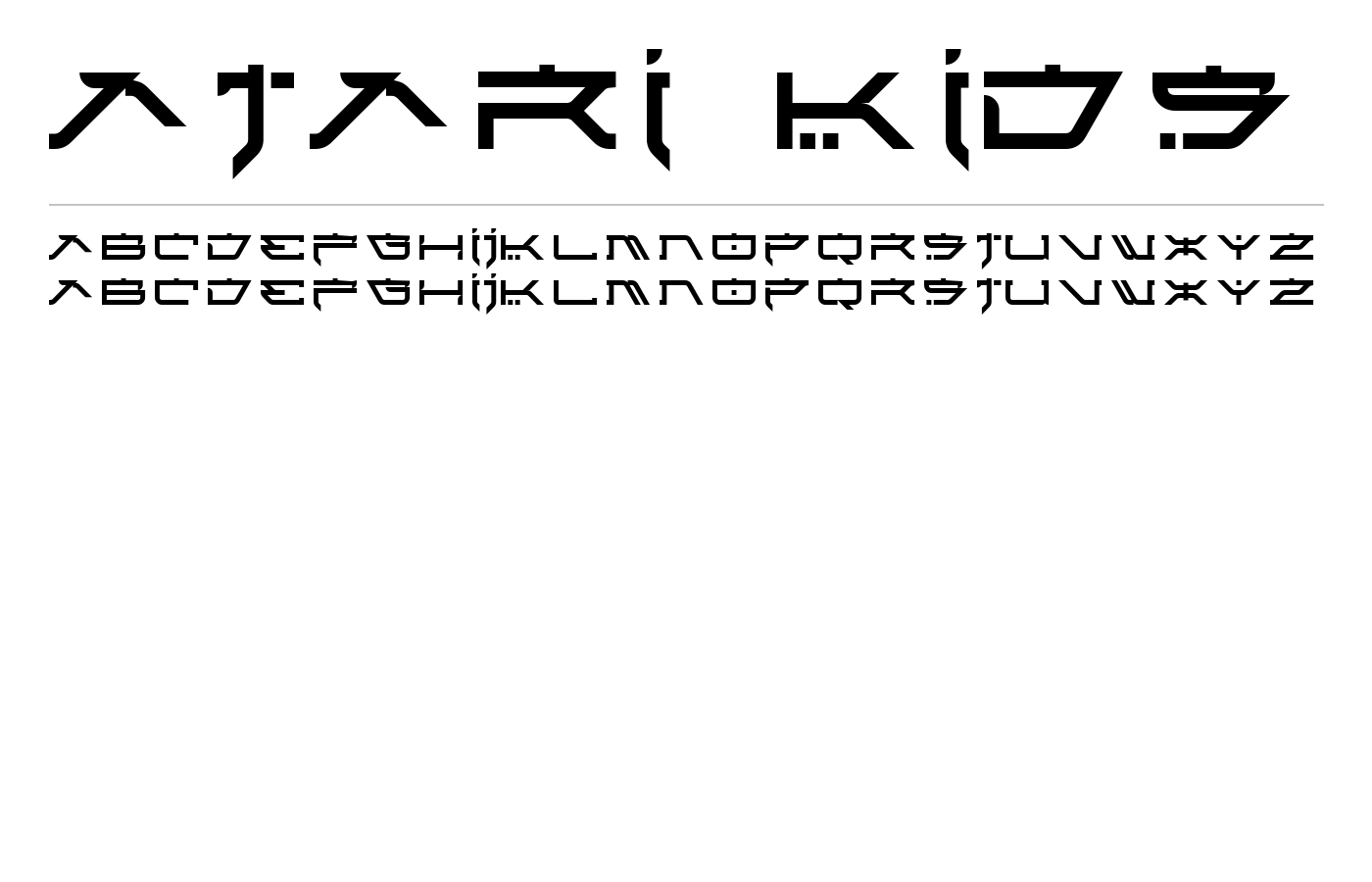
Atari Kids is a futuristic, geometric sans serif font with a bold, tech-inspired look. Its sharp angles and stylized letterforms give it a distinctive, video game or sci-fi aesthetic, making it perfect for logos, posters, or branding that aims to evoke innovation and playfulness. This font works best in display settings where its unique shapes can make a striking visual impact.
Atari Kids Font